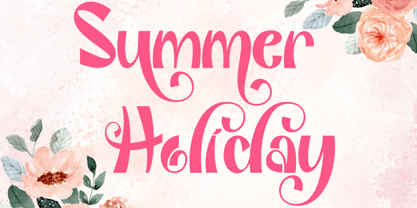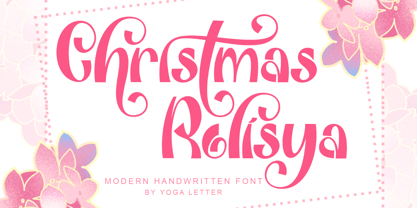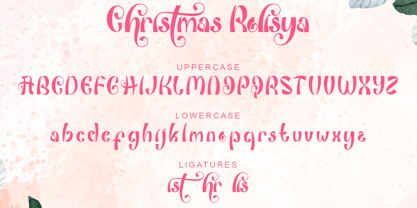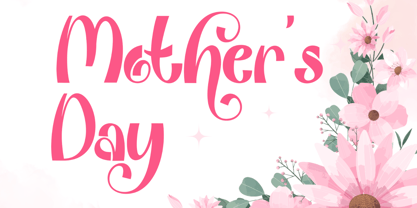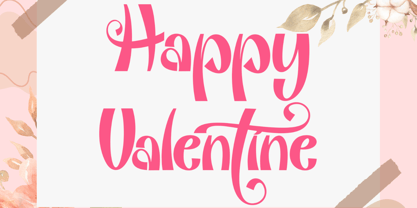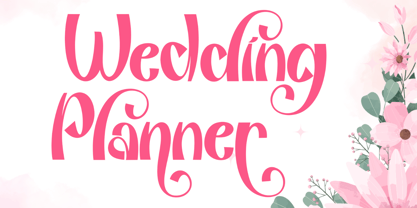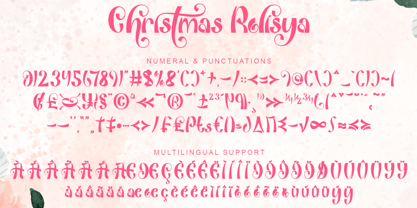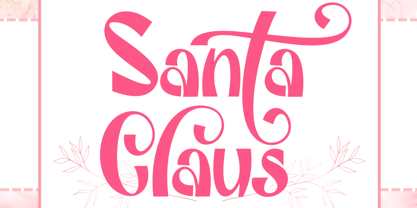
Christmas Rolisya
by Yoga Letter
The Christmas Rolisya Font Family was designed by Isroni Yoga Prasetya and published by Yoga Letter. Christmas Rolisya contains 1 styles.
"Christmas Rolisya" is an elegant and beautiful handwritten font. This font is equipped with ligatures, uppercase, lowercase, numerals, punctuations and multilingual support. Very suitable for Christmas, wedding, birthday, mother's day, father's day, invitations and others.
Designers: Isroni Yoga Prasetya
Publisher: Yoga Letter
Foundry: Yoga Letter
Design Owner: Yoga Letter